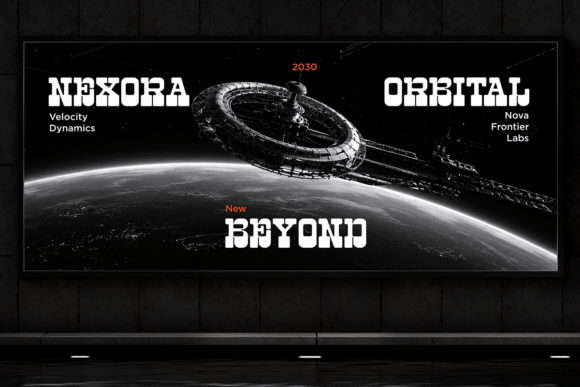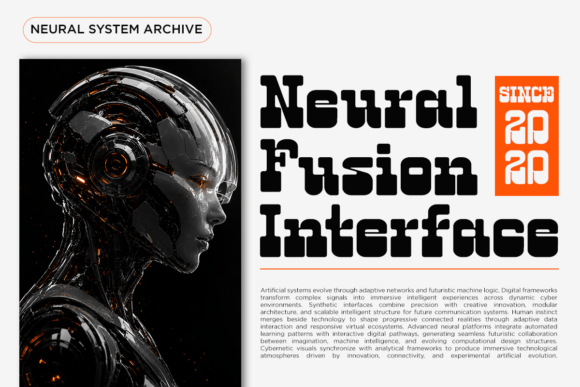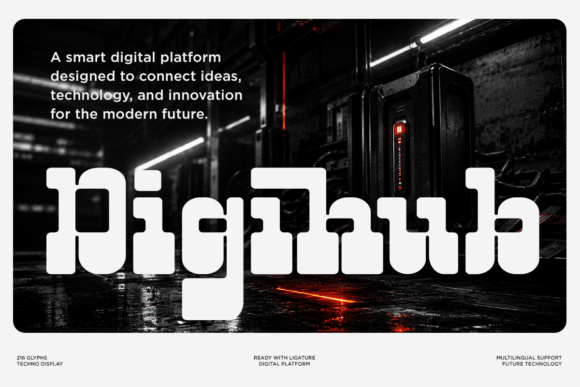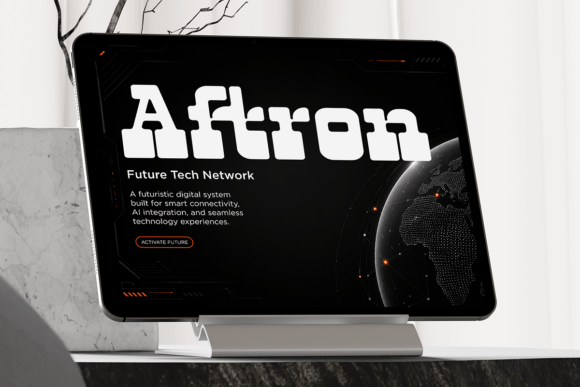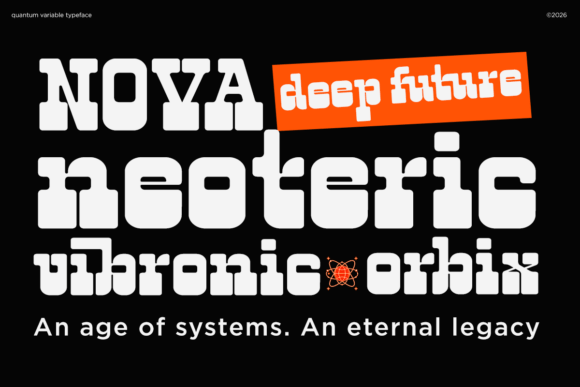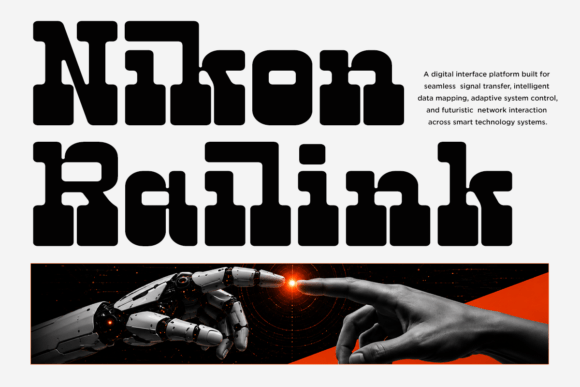
Introduction to Neficto Font
Imagine you’re working on a high-stakes project, pouring your heart and soul into a futuristic design concept. You’ve spent hours perfecting every detail, from the subtle curves to the bold typography. And then, you finally land on the perfect font – Neficto Font. Its sleek, high-tech aesthetic instantly elevates your design, making it stand out in a crowded marketplace. Whether you’re a seasoned designer or a creative enthusiast, Neficto Font is a game-changer for any project that demands a premium, cutting-edge look.
As a valuable design resource, Neficto Font offers a unique combination of modern style and exceptional readability. Its transparent background and clean lines make it an ideal choice for creative projects that require a high-quality, professional finish.
Key Features of Neficto Font
- High-quality design resource perfect for creative projects, offering a unique aesthetic.
- Designed to provide a high level of flexibility, making it an ideal choice for designers working on various creative projects.
- Includes a comprehensive character set, including uppercase and lowercase letters, numbers, and special characters.
- OpenType features, such as ligatures and swashes, add an extra layer of sophistication and creativity to your design.
Honest Review: Neficto Font
I recently stumbled upon the Neficto Font and I must say, it’s a high-quality addition to any designer’s arsenal. This font is perfect for creating visually appealing and modern designs. One of the standout features of the Neficto Font is its transparent background, which allows for seamless integration with any background image or color.
The Neficto Font is an excellent design resource for creatives working on various projects, from branding to print materials. The font’s versatility and modern feel make it an ideal choice for designers looking to elevate their creative project.
Here are some of the things that work well with the Neficto Font:
- High-quality design: The font is well-crafted and visually appealing.
- Transparent background: Allows for easy integration with any background.
- Modern feel: Perfect for creating modern and trendy designs.
- ⚠️ Limited font styles: The font only comes in a few styles, which may limit its versatility.
- ⚠️ Not suitable for all designs: The font’s modern feel may not be suitable for traditional or classic designs.
Overall, I’m impressed with the Neficto Font and I would recommend it to designers looking for a high-quality, modern font. While it has some limitations, it’s a great resource for creatives working on various projects.
Neficto Font is ideal for creating eye-catching titles, headings, and quotes in your design project. It’s also great for adding a touch of elegance and sophistication to your branding materials.